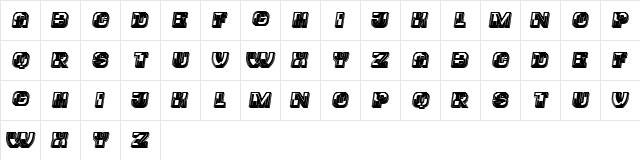
Trader College Italic
Design Context for Trader College Typeface
Trader College brings high-energy athletic personality to the page — its confident, muscular forms are built for impact. The slanted form adds forward momentum and visual energy.
A natural choice for gym brands, fantasy sports, jersey lettering, and action-driven headlines.
Font Pairing: Use alongside a condensed or geometric sans for supporting copy — keep the pairing bold, functional, and free of ornament.
Pro Tip: Use Trader College in all-caps headlines where its athletic energy can fully express itself. Pair with a solid, simple sans for supporting text.